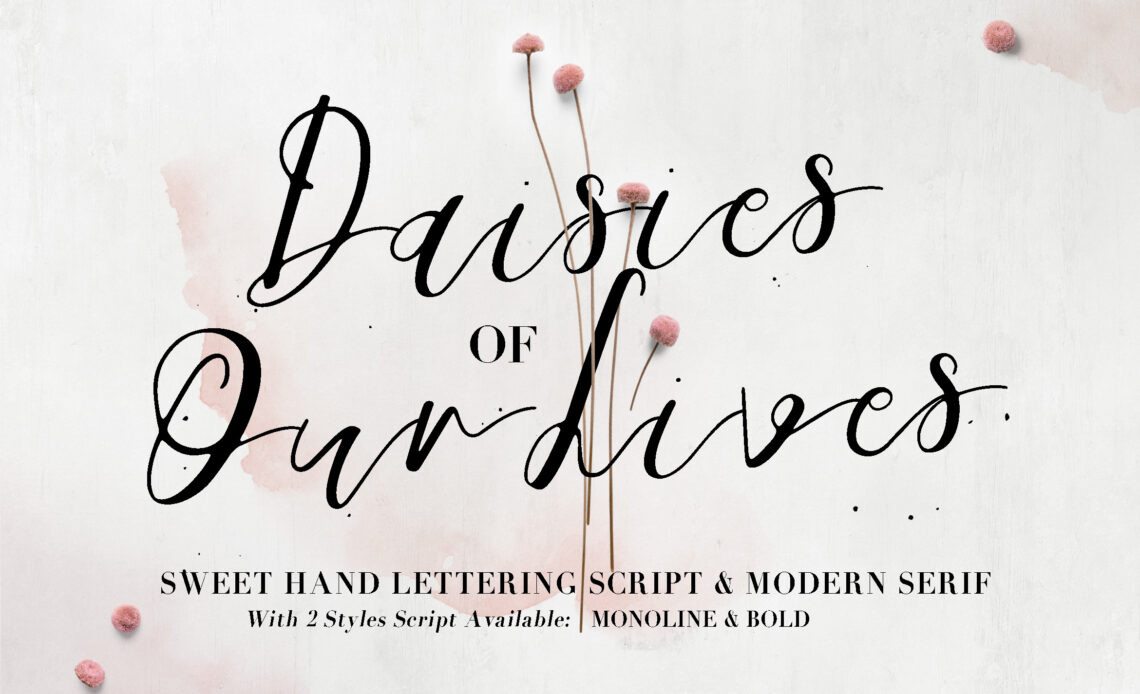
Introducing Daisies of Our Lives Font - A Floral Symphony of Elegance and Modernity
Prepare to be captivated by the enchanting allure of Daisies of Our Lives Font, a breathtaking script-serif duo that will transform your creative endeavors into a symphony of visual splendor. Crafted with meticulous attention to detail by the renowned Blue Robin Design Shop, this font family is a testament to the power of blending classic beauty with contemporary flair.
Step into a world where delicate hand-lettering intertwines seamlessly with the sharp precision of modern serifs. Daisies of Our Lives Font empowers you to express your unique style with unparalleled elegance and sophistication. Whether you're crafting enchanting invitations, designing eye-catching social media posts, or creating unforgettable branding materials, this font family will elevate your projects to new heights of creativity.
Indulge in the versatility of Daisies of Our Lives Script, available in two captivating variations: a delicate Thin-Monoline and a bold, statement-making Bold. This enchanting script dances across your designs with the fluidity of a gentle breeze, adding a touch of whimsy and charm to every word. Pair it with the refined Daisies of Our Lives Serif, a font that exudes timeless grace and sophistication. Together, they form an unstoppable duo that will make your designs bloom with unparalleled beauty.
Embrace the creative possibilities that await with Daisies of Our Lives Font. Its versatility knows no bounds, making it the perfect choice for a myriad of projects. From the delicate strokes of wedding invitations to the bold headlines of marketing campaigns, this font family will transform your words into works of art. Let your imagination soar as you create stunning logos, unforgettable posters, mesmerizing social media posts, and captivating website designs.
Don't settle for ordinary fonts that fade into the background. Choose Daisies of Our Lives Font and unleash your creativity with a symphony of elegance and modernity. Allow your designs to blossom into masterpieces that captivate hearts and leave a lasting impression.